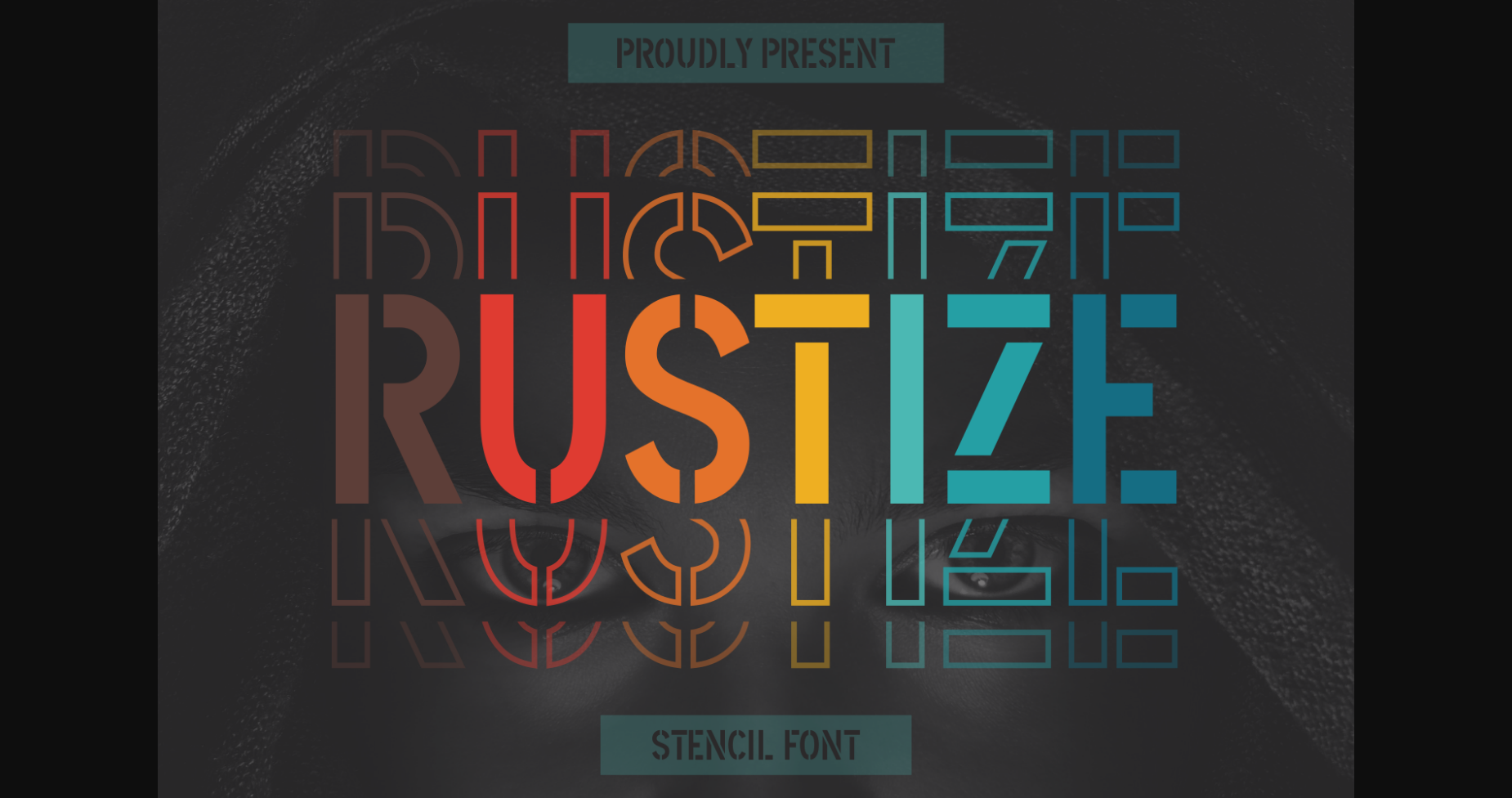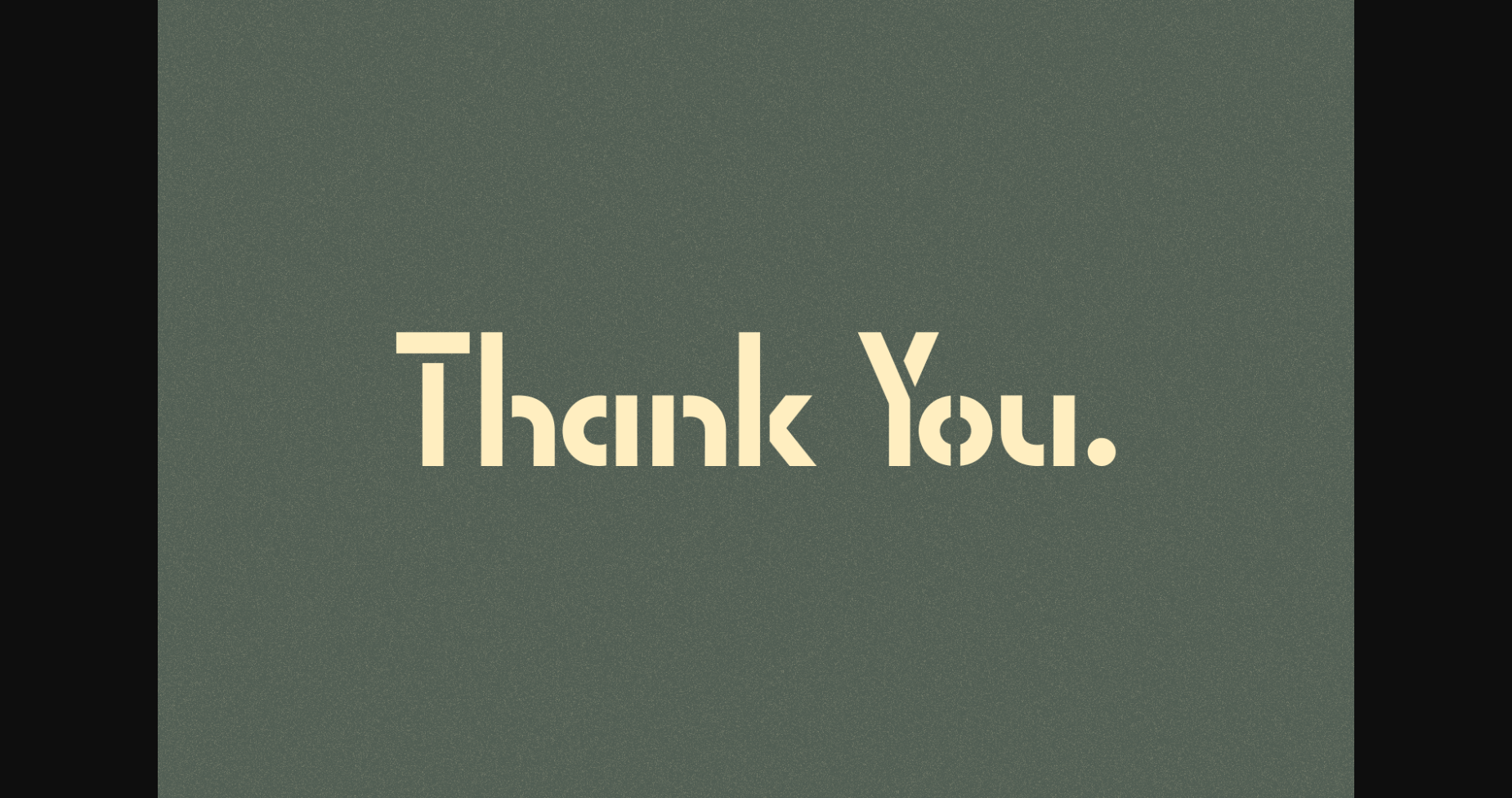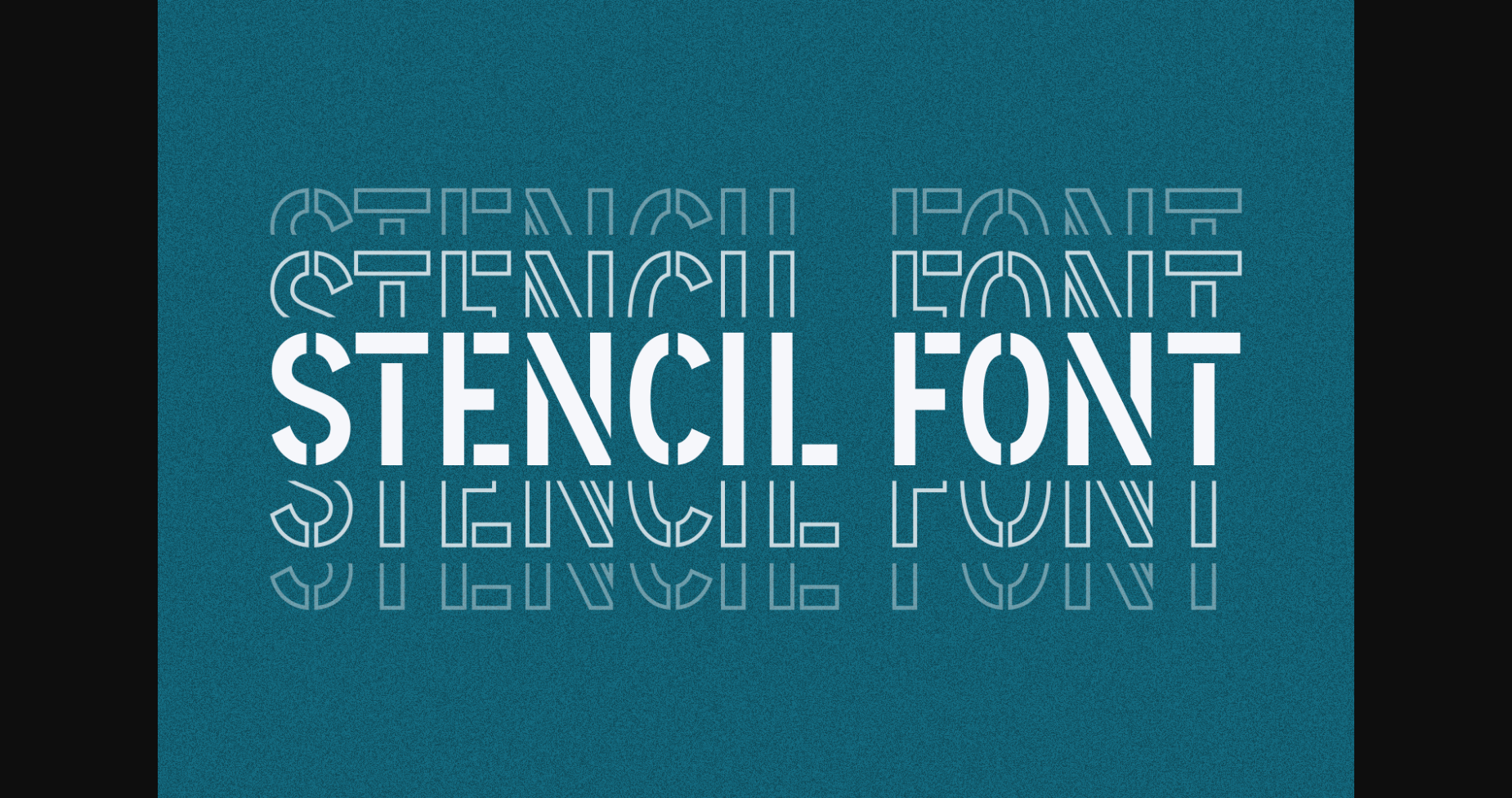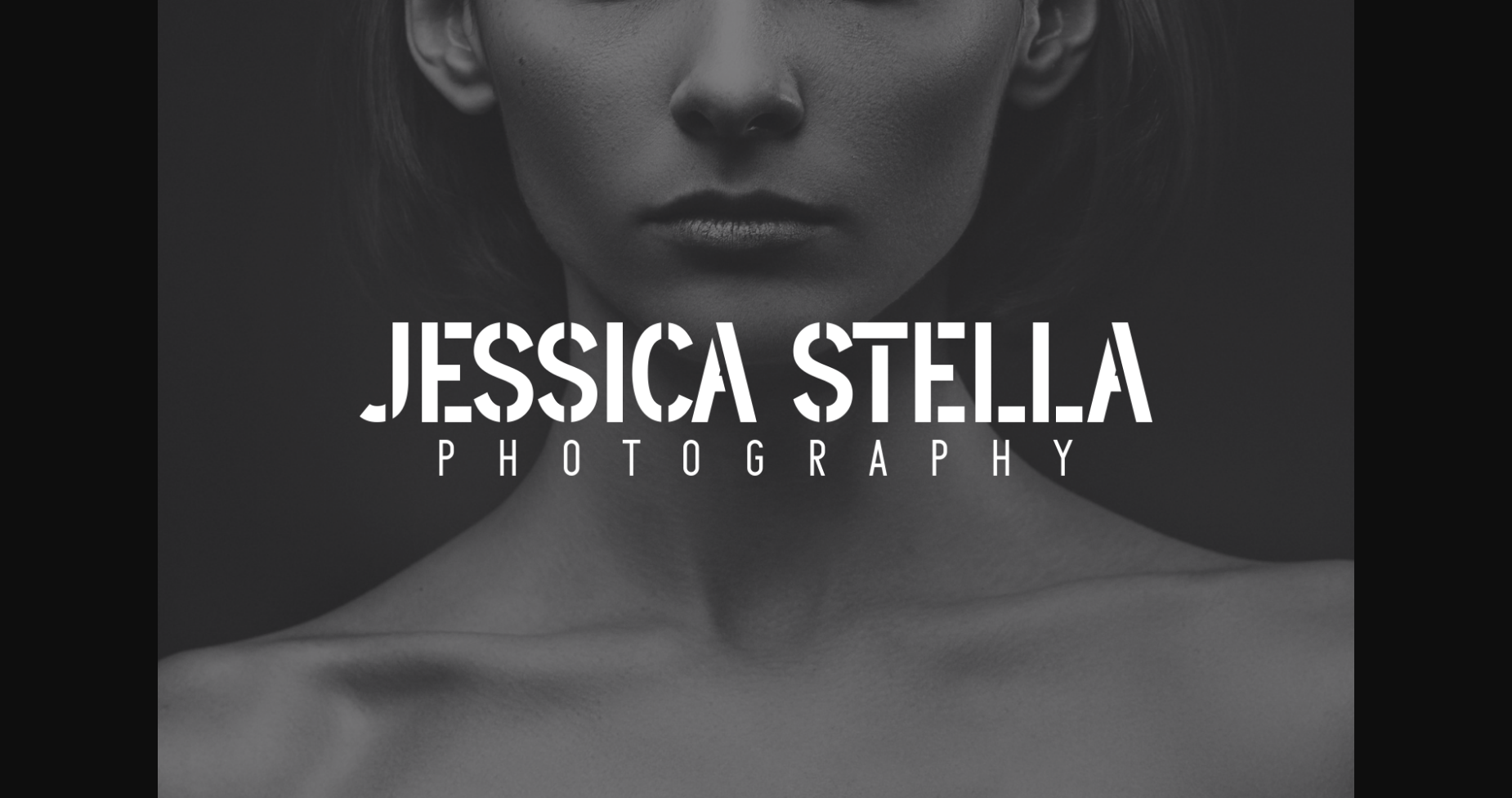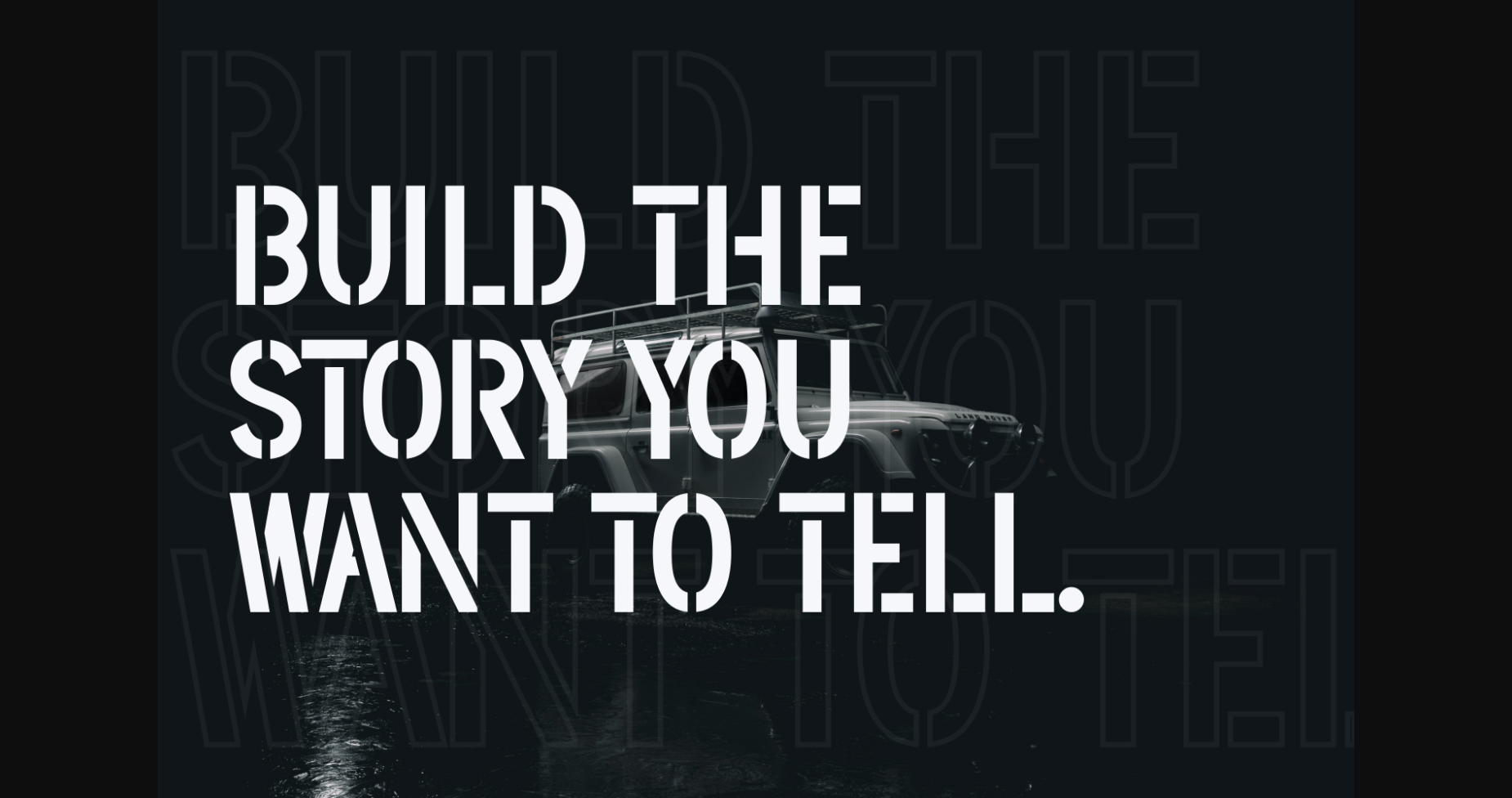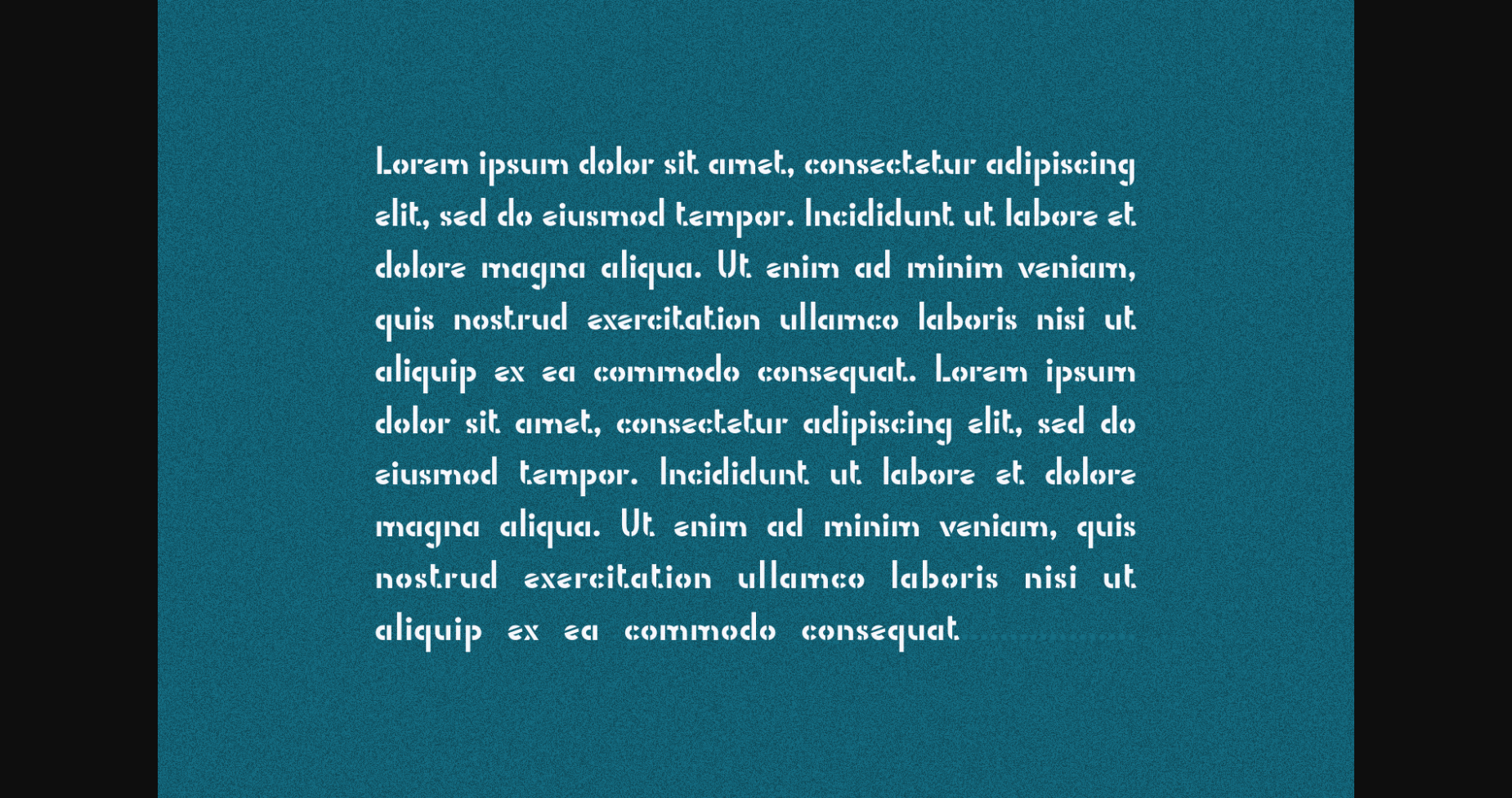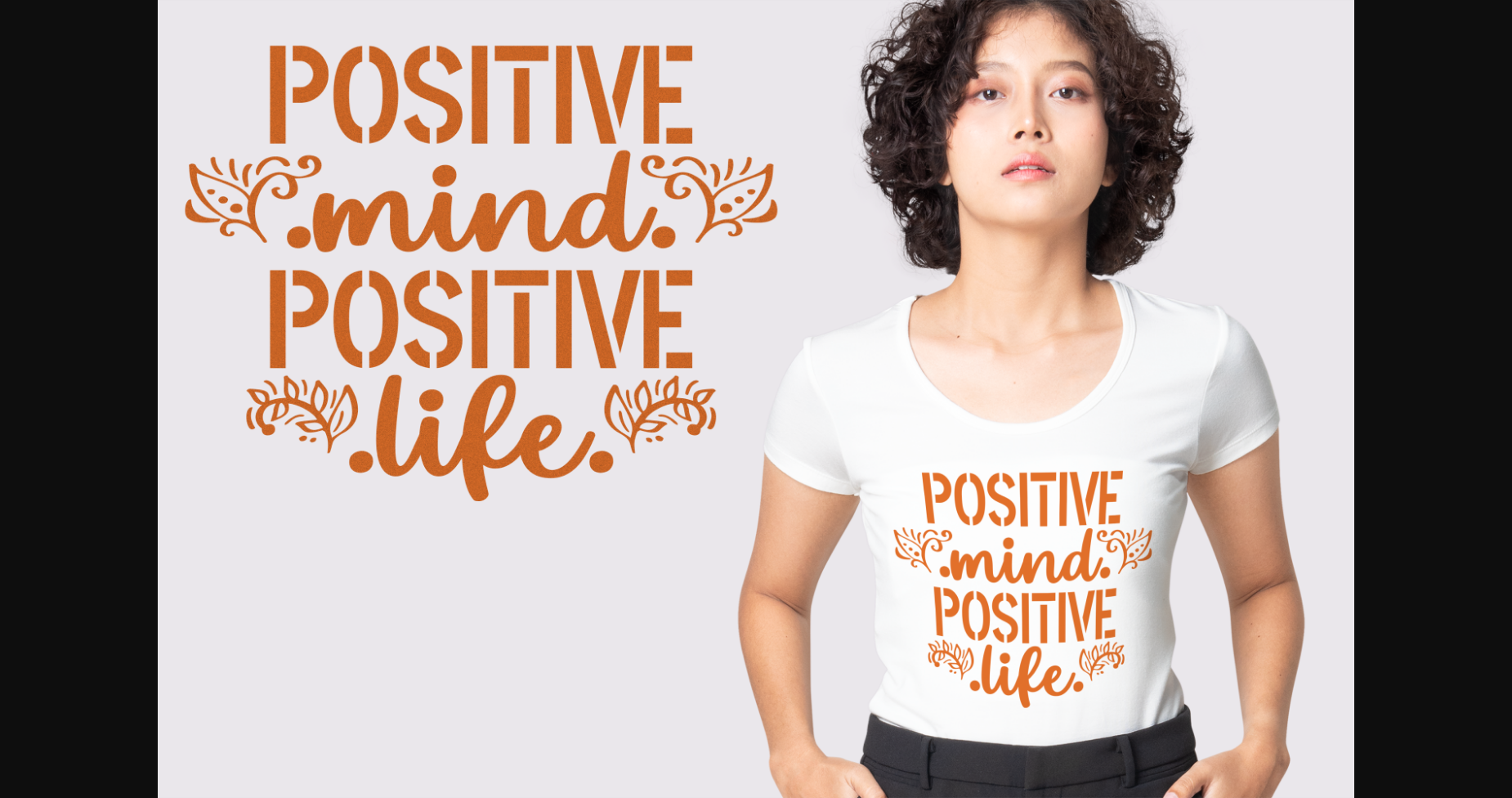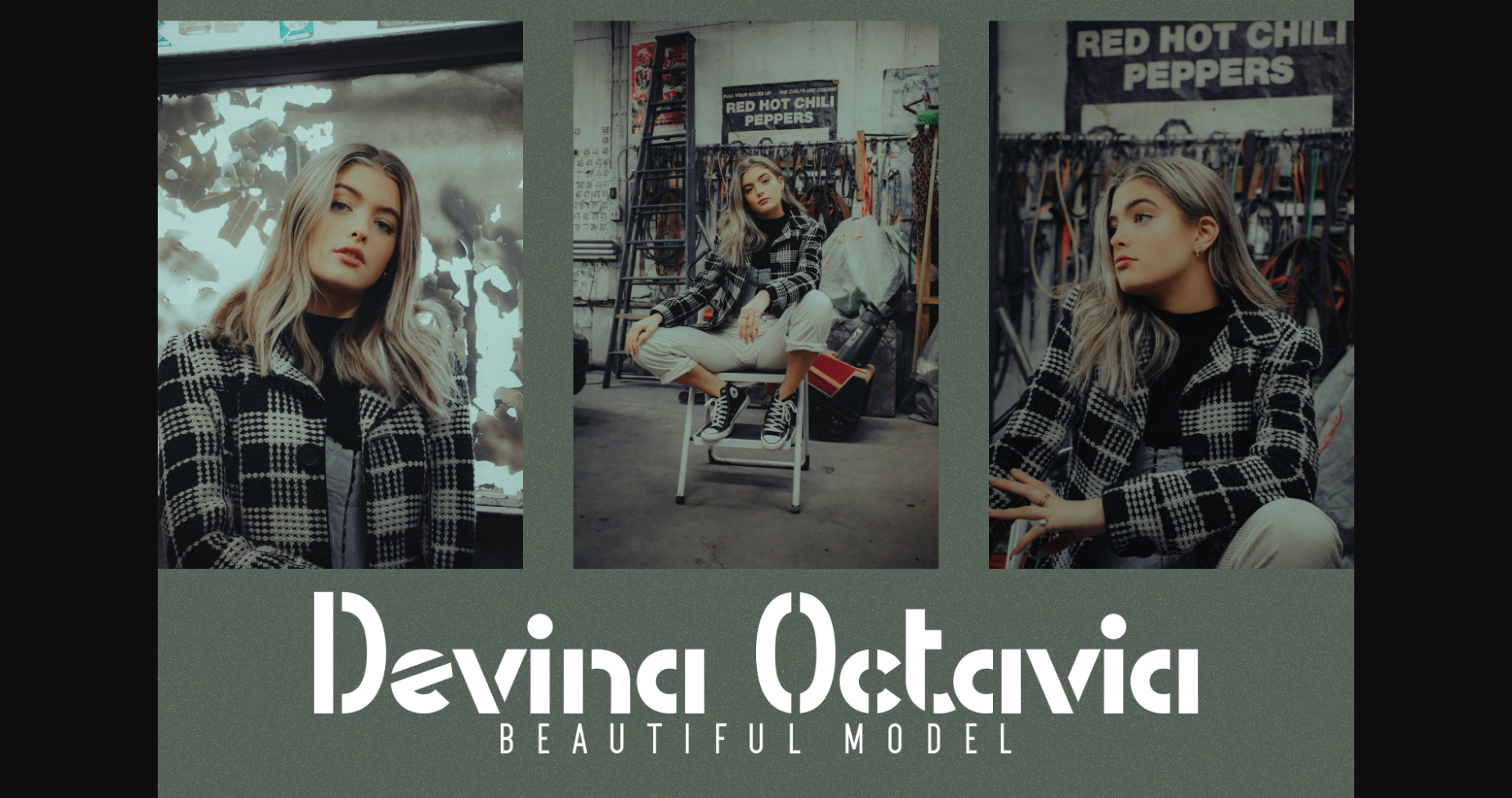
Rustize Font
About Rustize Font
Rustize is a retro and unique display font, designed to transport you back in time with its vintage flair. With its distinctive and bold letterforms, this font exudes a sense of nostalgia and charm that is perfect for branding, packaging, and editorial design. Get ready to add a touch of retro style to your project with this font!